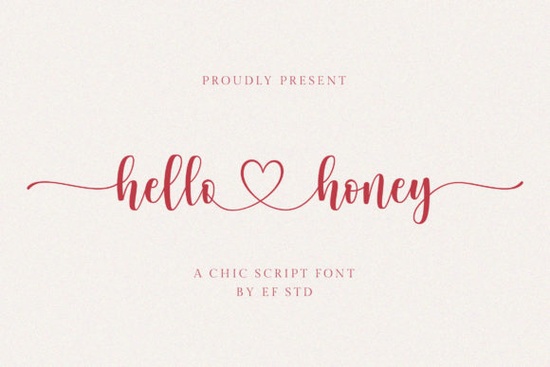
If you’ve been searching for a handwriting font that feels warm, playful, and a little romantic, Hello Honey Font is one you’ll want to test right away. Its letters flow with a natural, unforced bounce and include a set of heart-shaped swashes that instantly soften any design. I’ve tried it on wedding invitation suites, sticker sheets, and social media quote cards, and it consistently adds a cozy, handmade charm without looking sloppy.
What makes Hello Honey Font feel so authentic?
The typeface mimics the look of real brush lettering but avoids being overly formal or stiff. The letter heights vary slightly, ascenders and descenders extend at different lengths, and the connections between characters feel genuine. Each lowercase g, y, and j has a playful curl, while the uppercase letters keep a clean, slightly rounded structure that remains readable. The overall rhythm reminds me of what you’d get from a good brush pen on smooth paper approachable and full of personality.
Which design projects shine with Hello Honey?
This cute handwritten font fits a wide range of creative work, especially when you need a soft, heartfelt tone:
- Wedding suites: Invitations, save-the-date cards, place cards, and envelopes feel more personal with a handwritten script.
- Greeting cards: Birthday, thank-you, love notes, and holiday cards gain extra warmth when the text looks hand-drawn.
- Social media graphics: Quote posts, announcement banners, and Instagram story overlays stand out without shouting.
- Stationery & art prints: Notebooks, journal covers, wall art, and baby shower decor can all benefit from its delicate charm.
- Print-on-demand products: Mugs, tote bags, t-shirts, and phone cases with sweet slogans look more authentic with a natural script.
Because the font remains clear even at smaller sizes, it also works nicely for website headers, logo accents, and product tags aimed at a feminine or romantic audience.
How do I access and use the heart swashes?
A tip I’ve found useful: use the heart swashes sparingly on long words or names. Placing them at the end of a signature line, on the initial capital, or on a single key phrase keeps the design elegant rather than cluttered.
Does Hello Honey work well for small text and print?
Yes, but with a small caveat. The letterforms are fairly generous in width and the hairlines aren’t extremely thin, so they hold up nicely in print at around 10pt and above. For tiny labels or dense paragraphs, you might consider a slightly simpler script or a clean serif companion for body copy. In my tests on matte and uncoated paper, the ink spread didn’t close up the counters, making it a safe choice for home printers and craft cutters alike. If you plan to use it for vinyl cutting or heat transfer, do a small test first the thin strokes are still sturdy enough for most beginner-friendly blades.
- For a bouncy connected script with an equally romantic mood, the Better Together script brings a slightly more elegant flow.
- If you need an extra-soft, rounded look, Milkbutter delivers a fluffy, whimsical result that pairs wonderfully with simple sans serifs.
- The Little Love handwriting font uses a tighter baseline, making it a neat option when space is limited but you still want a sweet, personal touch.
- Fans of playful nostalgia might appreciate the Barbie script, which leans into a cute, retro-inspired vibe without feeling childish.
- When a project calls for a two-font set, the Cupcake Handmade Duo combines a soft script with a charming all-caps companion, great for greeting cards and blog headers.
Pairing Hello Honey with any of these can create a consistent hand-lettered brand style across multiple product lines or seasons.
Who will get the most use out of Hello Honey?
Freelance designers who craft wedding stationery, small business owners who sell paper goods or apparel, and crafters who make personalized gifts will find themselves reaching for this font again and again. Print-on-demand sellers can use it to add a handwritten signature feel to mockups without hiring a calligrapher, and content creators can give their quote graphics a friendly, human touch that stands out in feeds. Even hobbyists making scrapbook pages or planner stickers will appreciate how easy it is to work with the font right inside favorite design apps.
Pick one small project, like a thank-you tag or a short Instagram story, and see how naturally the script fits into your own creative voice.